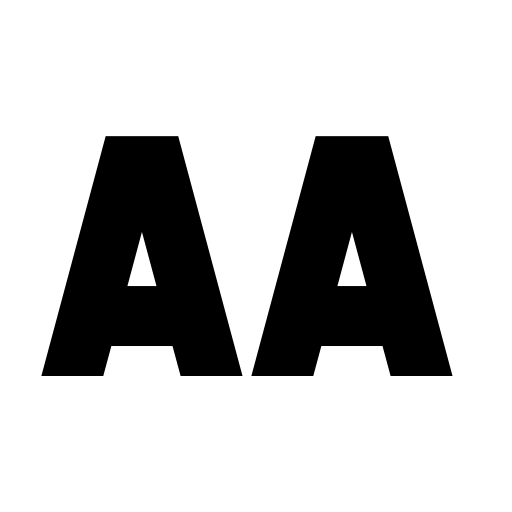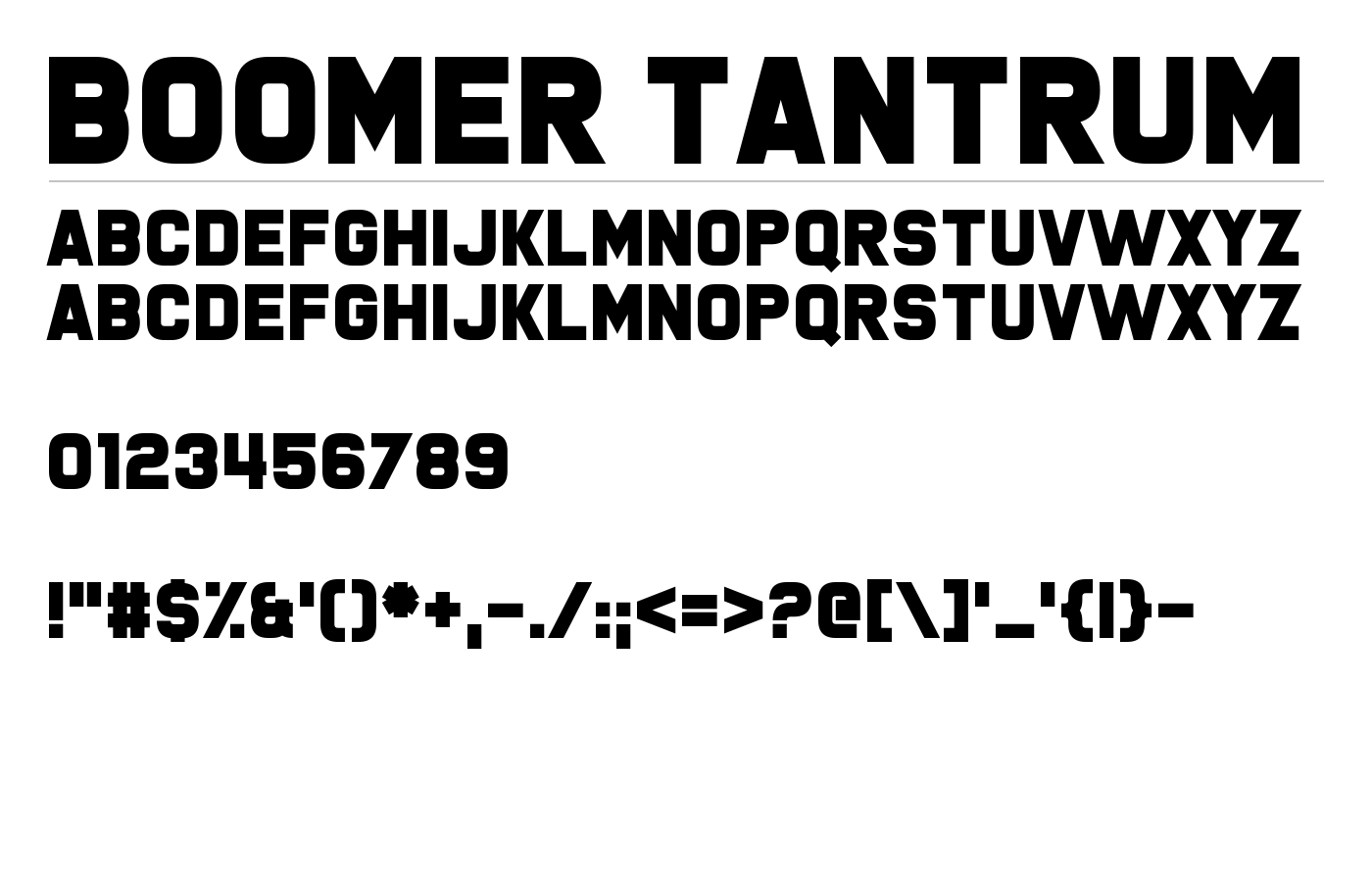
Boomer Tantrum is a bold, condensed sans serif font with a strong, assertive presence. Its sturdy geometric letterforms and uniform stroke weight create a modern and impactful look, making it ideal for headlines, branding, and display uses where a confident, no-nonsense tone is desired. This font works well in energetic, urban, or industrial contexts, delivering clarity and power in every letter.
Boomer Tantrum Font
About Boomer Tantrum Font